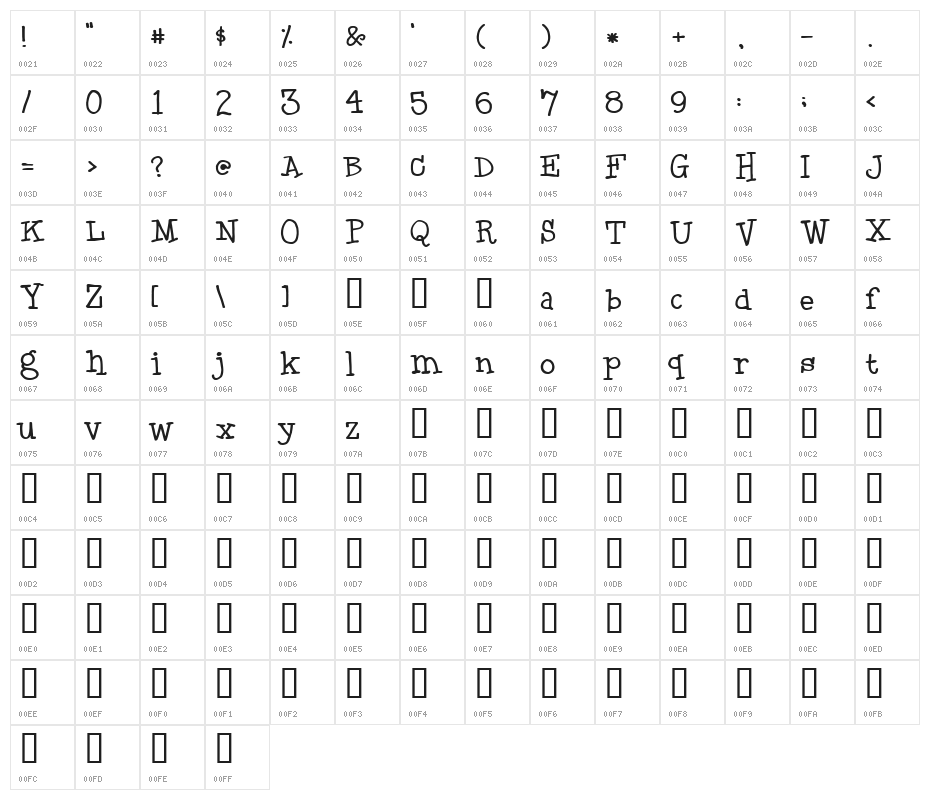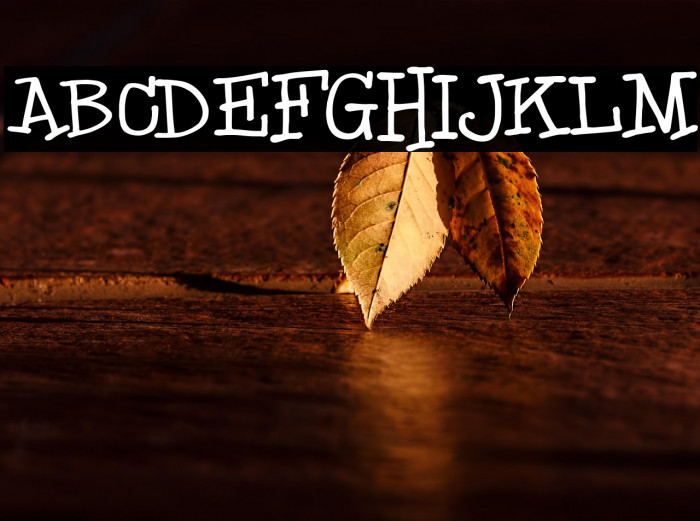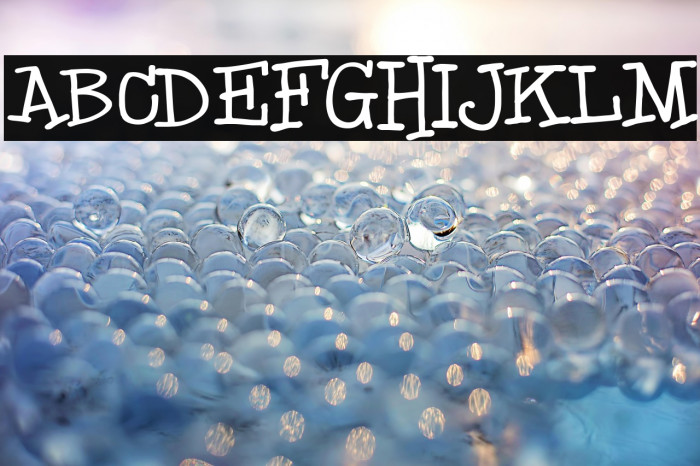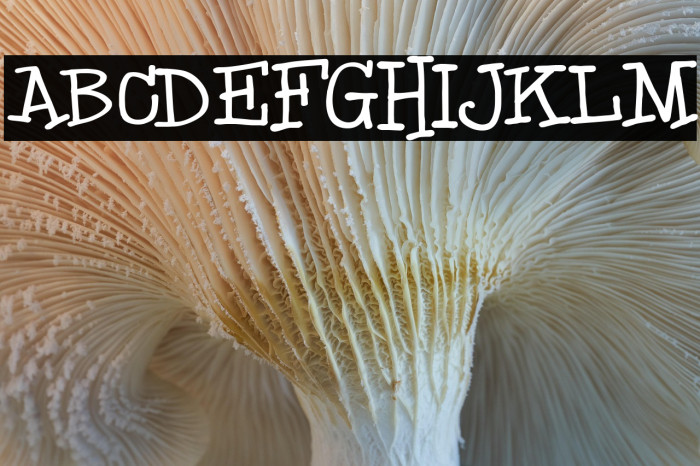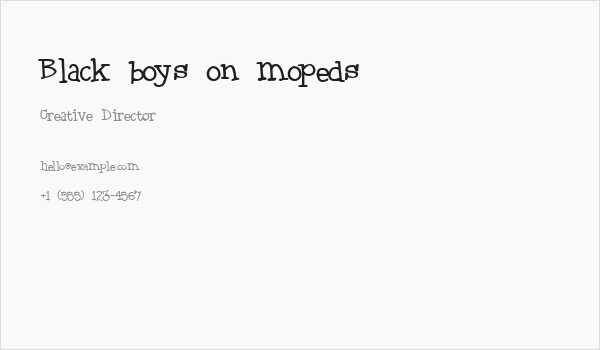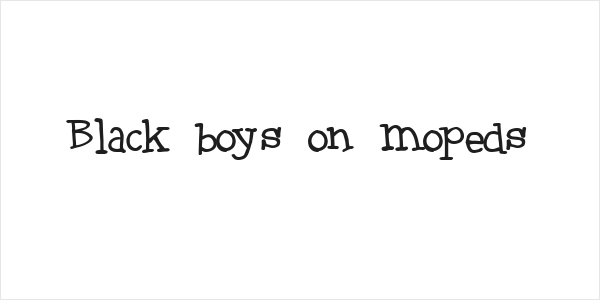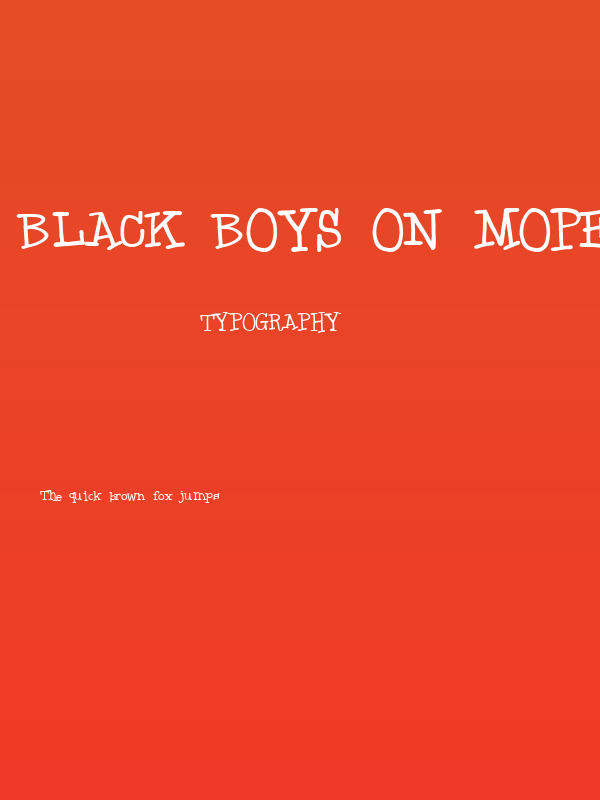
Black boys on mopeds Font
Black boys on mopeds Description
This playful and whimsical font features a hand-drawn style with uneven lines and a casual, friendly appearance. The characters are slightly irregular, giving them a unique and approachable feel. The uppercase and lowercase letters maintain a consistent style, with rounded edges and a slight tilt that adds to the informal aesthetic. Numbers and special characters are designed to match the overall playful theme, making this font suitable for creative and fun projects. Its distinctive look is ideal for capturing attention and conveying a sense of joy and creativity.
| Proposed Projects | Ideal for children's books, greeting cards, playful branding, and creative posters. |